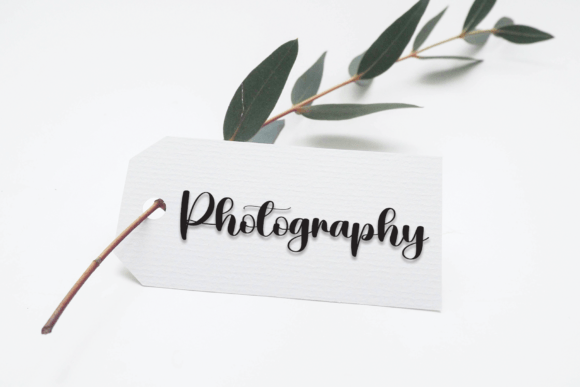
About Calligraphy Font
**Calligraphy: A Stylish and Elegant Handwritten Script Font**
Calligraphy is a stylish and elegant handwritten script font that brings a touch of sophistication and romance to your design projects. This versatile font offers a wide spectrum of applications, making it suitable for greeting cards, headlines, and more, where it guarantees to infuse a romantic feel into your next endeavor.
The primary allure of Calligraphy lies in its stylish and elegant script. Each letter is meticulously designed to capture the timeless beauty and fluidity of handwritten calligraphy. The font exudes an air of sophistication and grace, making it an ideal choice for projects where you want to convey a sense of timeless elegance.
Calligraphy’s versatility knows no bounds. It seamlessly fits into a variety of design contexts, from crafting heartfelt greeting cards to creating captivating headlines. Its readability and romantic aesthetics ensure that your message is not only conveyed effectively but also with a touch of class and charm.
In summary, Calligraphy is more than just a font; it’s a source of elegance and romance that enhances your design projects. Its stylish and elegant script letters make it the perfect choice for infusing sophistication and a romantic feel into your work. With Calligraphy, your creative projects will radiate with a timeless and elegant charm. Choose Calligraphy, and let your designs capture hearts with its romantic and stylish presence.